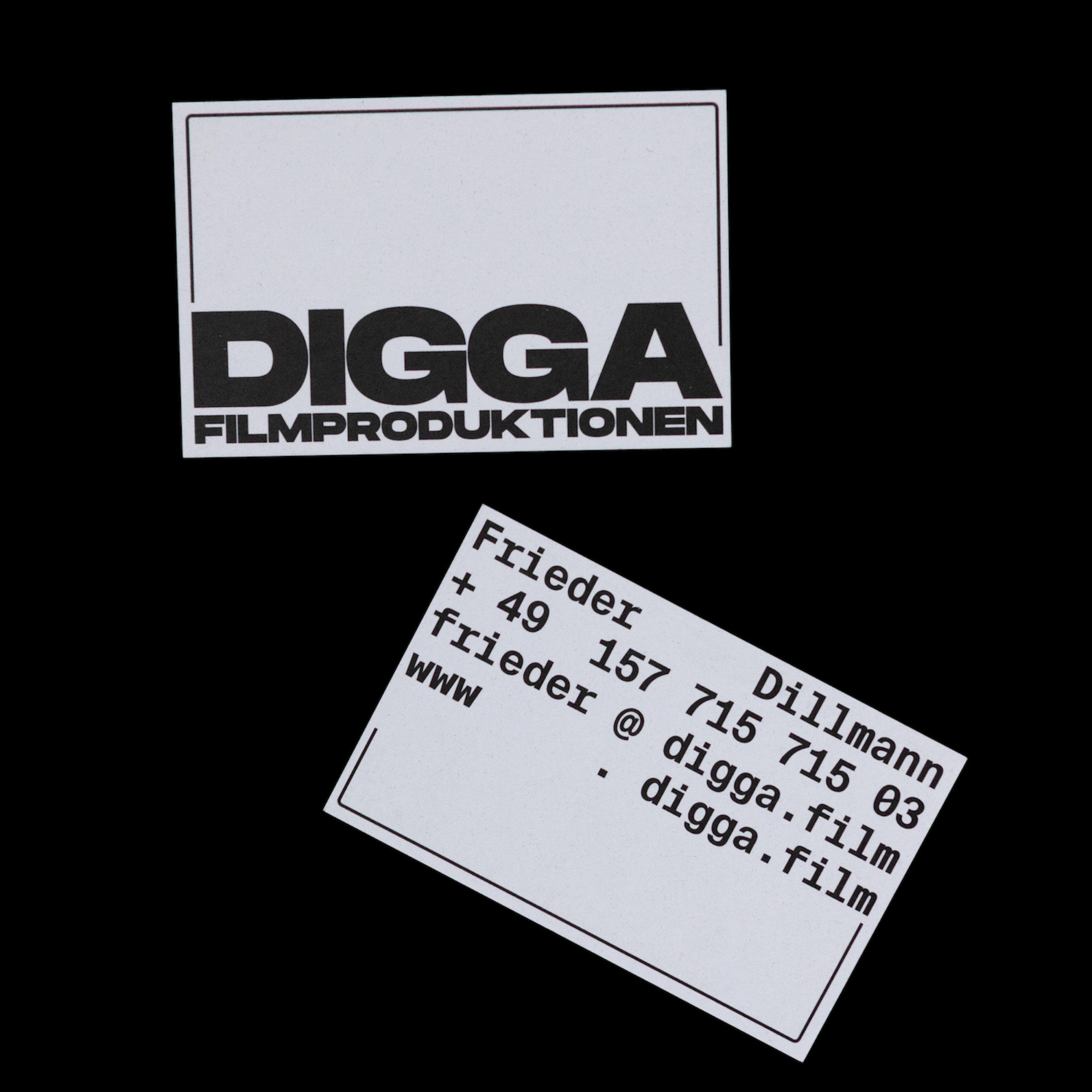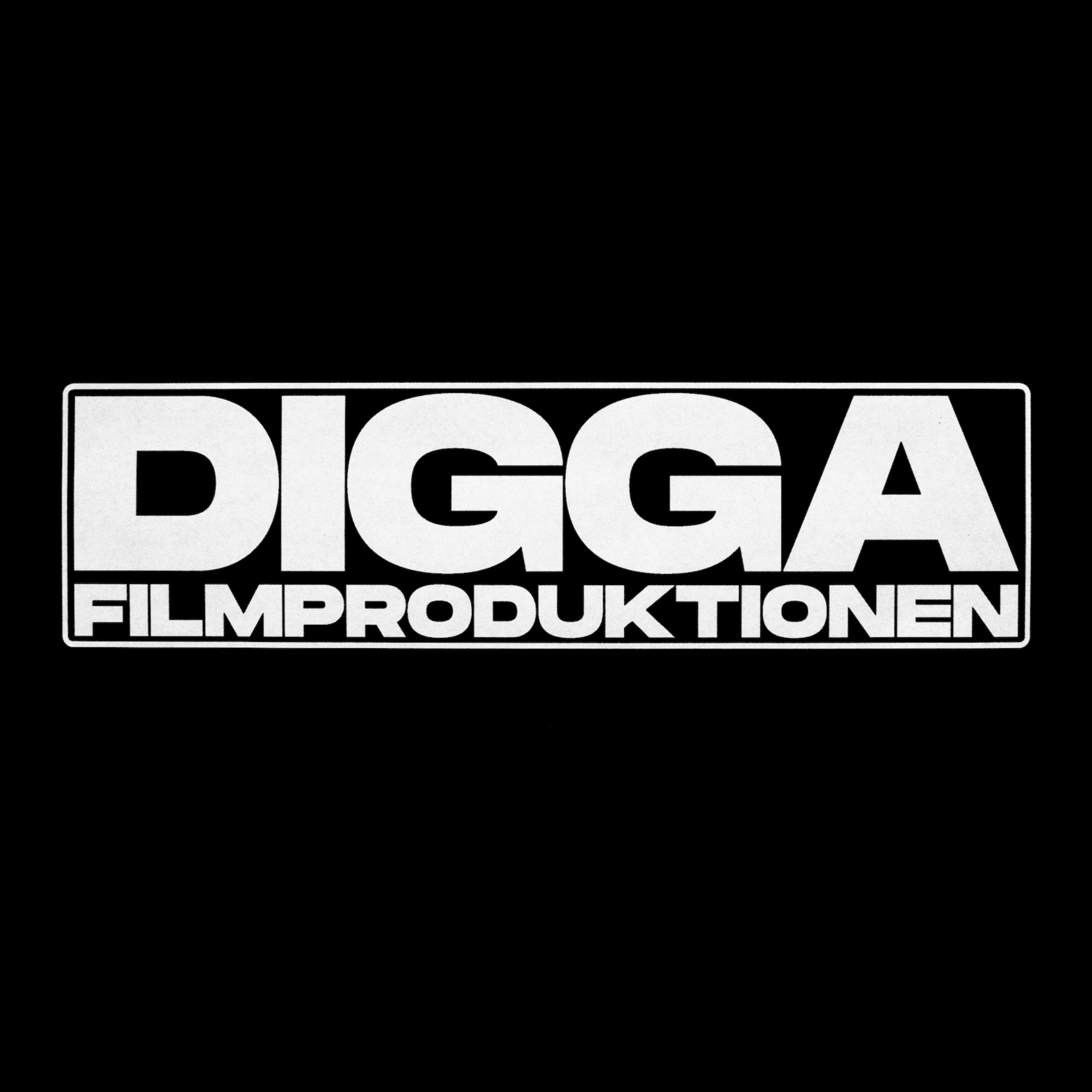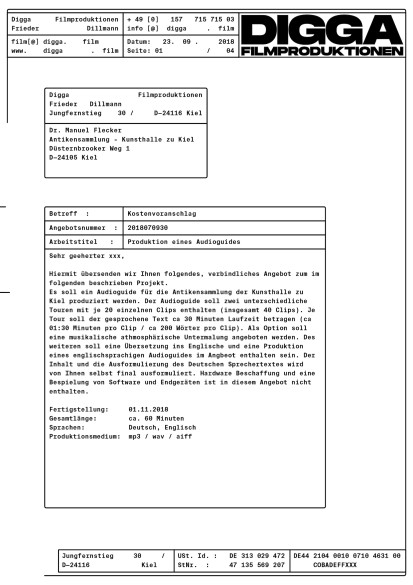
Digga Filmproduktionen
Logo, business cards as well as letterhead and invoice design for the film production company Digga Filmproduktionen from Kiel. The corporate identity is stylistically based on 80s logo design and is transferred to the present through choice of modern fonts.
Typeface: Suisse Intl Mono by Swiss Typefaces
& Monument Extended by PangramPangram•Foundry